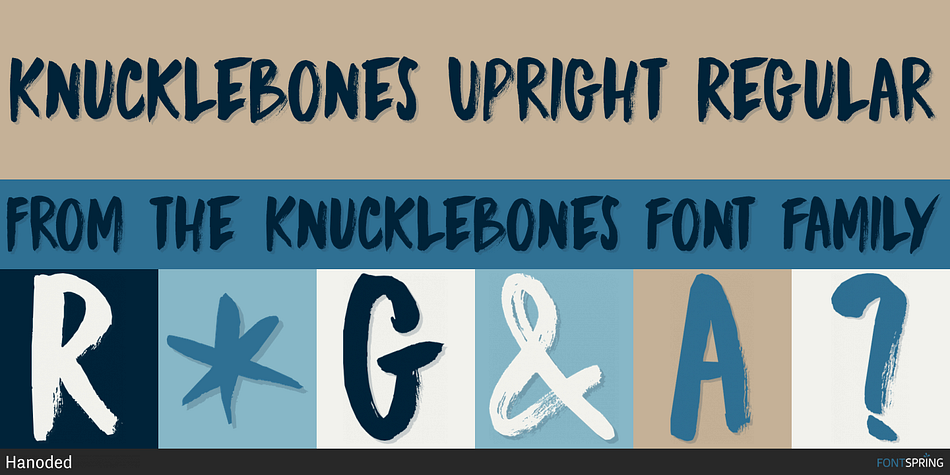
KNUCKLEBONES UPRIGHT REGULAR
Designed by David Kerkhoff, Knucklebones is a grunge and brush display font family. This typeface has three styles and was published by Hanoded.
Knucklebones is a game that is played with the knucklebones of sheep. I bought a set in Mongolia, which I stumbled upon when I was cleaning out the attic.
Knucklebones font is a rough brush font, which comes in three styles: Knucklebones Regular, a slightly slanted version, Knucklebones Italic, a very slanted style and Knucklebones Upright, which looks like the name implies.
Knucklebones is a very useful all caps typeface, which would look great on posters, product packaging and book covers - but don’t take my word for it: just grab this font and get creative with it!